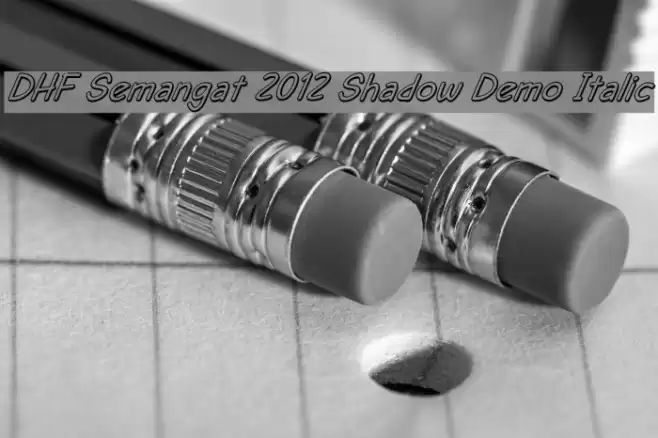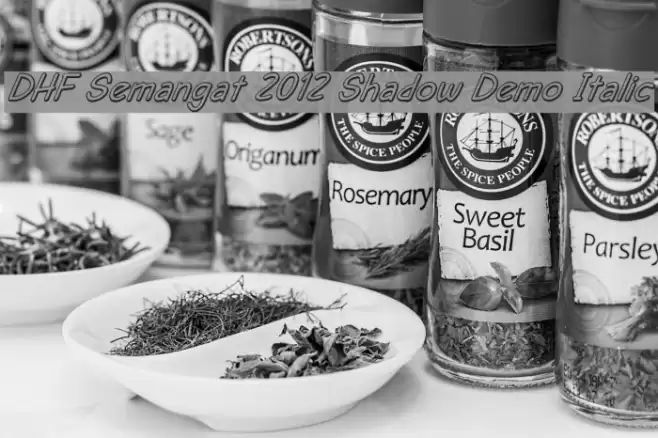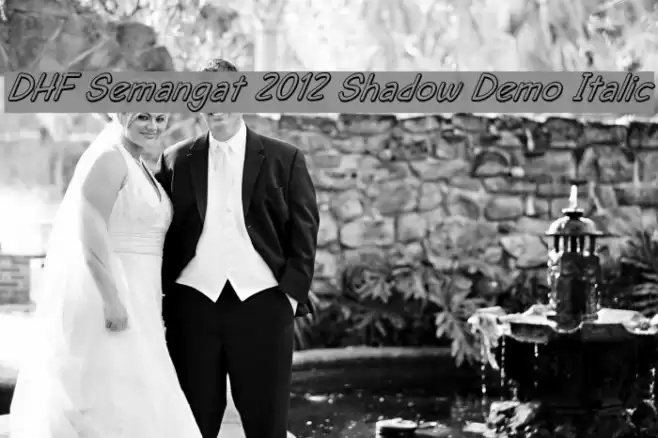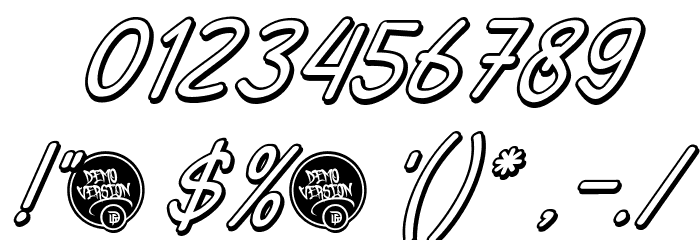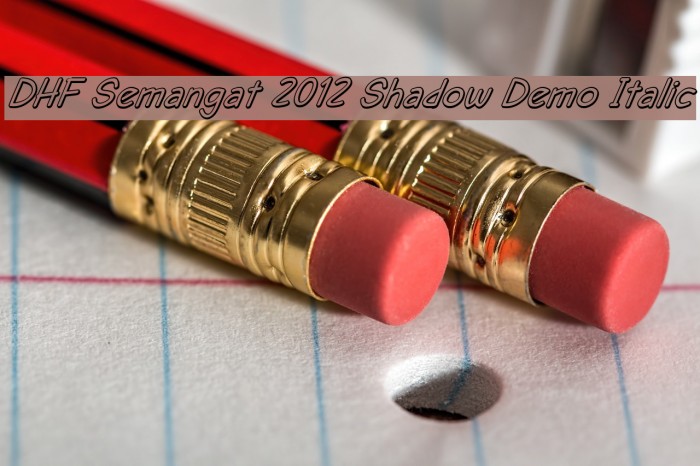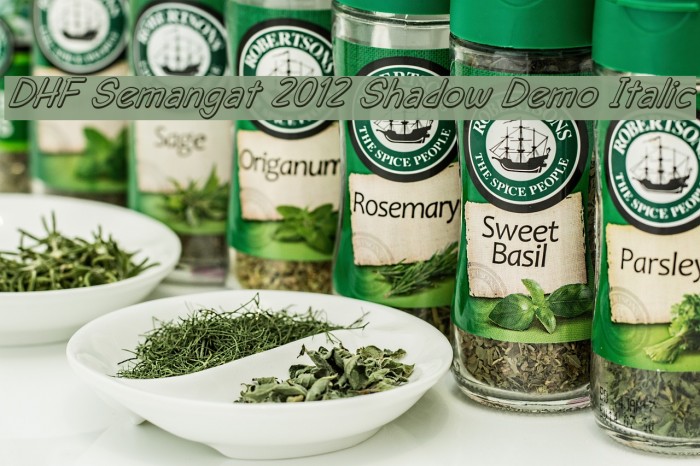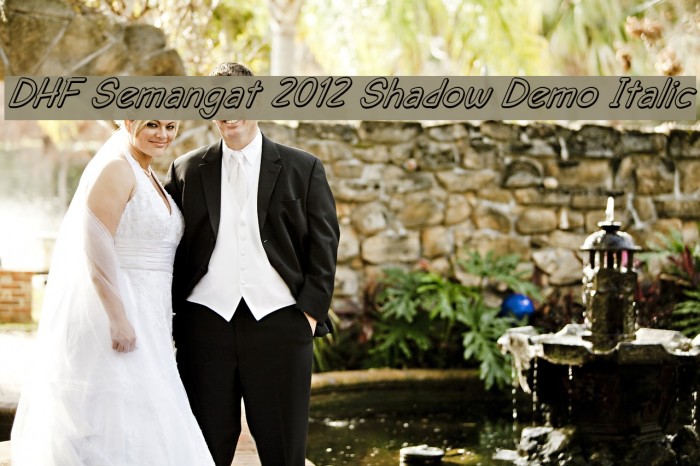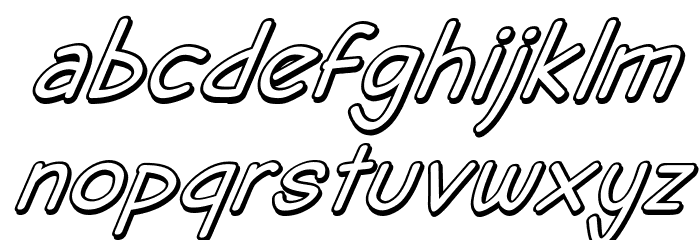
DHF Semangat 2012 Shadow Demo Italic
This font features a bold, italicized style with a distinct shadow effect that gives it a three-dimensional appearance. The characters are well-defined with a playful yet professional look, making it suitable for various creative projects. The uppercase and lowercase letters maintain a consistent style, with rounded edges and a smooth flow. Numbers and special characters are equally stylized, ensuring uniformity across all text elements. The shadow effect adds depth, making the text stand out, which is ideal for eye-catching designs.
A bold, italicized font with a shadow effect for a three-dimensional look.
- Proposed Projects: Ideal for posters, logos, headlines, and any design requiring a standout, playful yet professional font.
- Use Case: Headlines, Logos, Posters